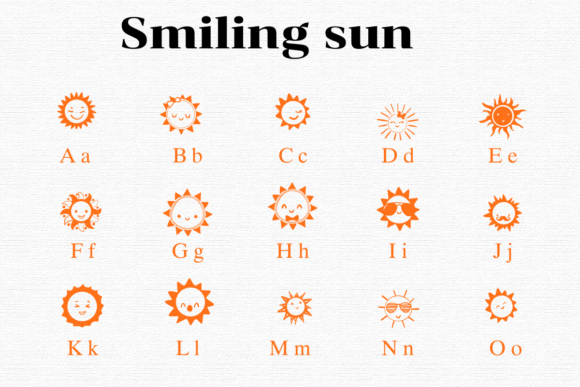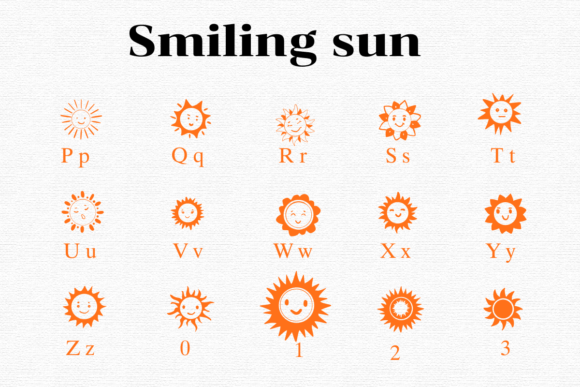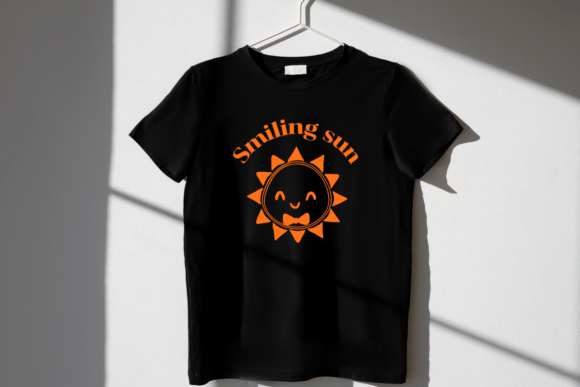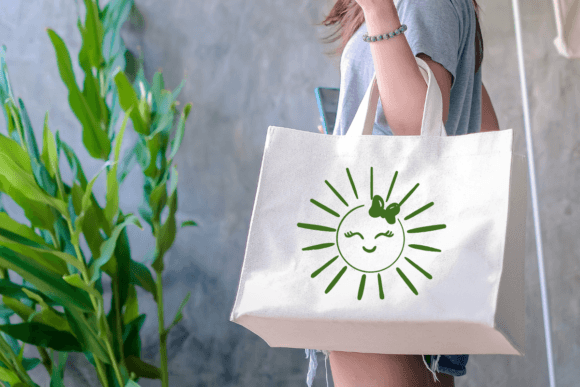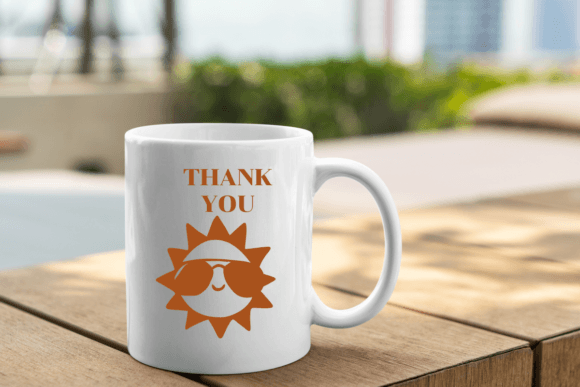
Introduction to Smiling Sun Font
Smiling Sun is a fun and adorable dingbat font that features cute and cheerful sun images.
Each character in this font displays a different smiling sun design, perfect for adding a touch of happiness and warmth to your projects .
Smiling Sun Font offers exceptional quality and versatility, making it a valuable addition to your design toolkit. Whether you’re creating for personal projects or commercial use, Smiling Sun Font delivers professional results.